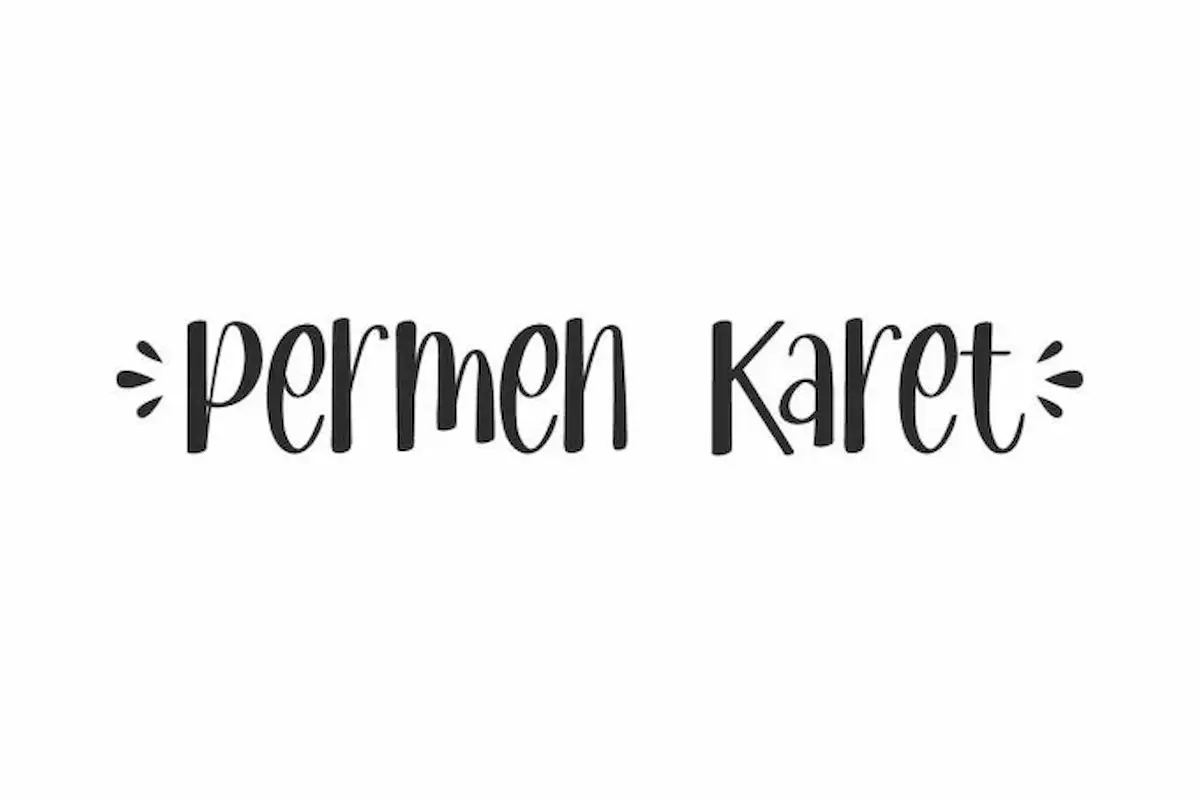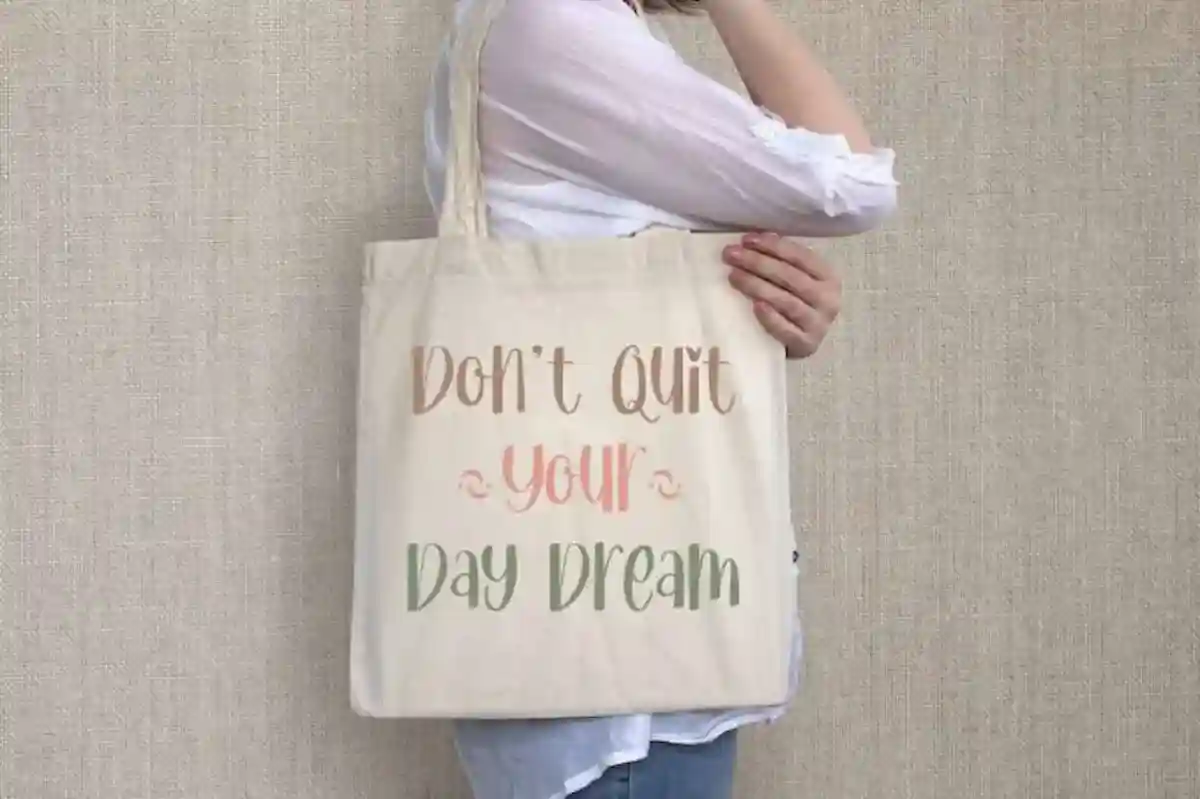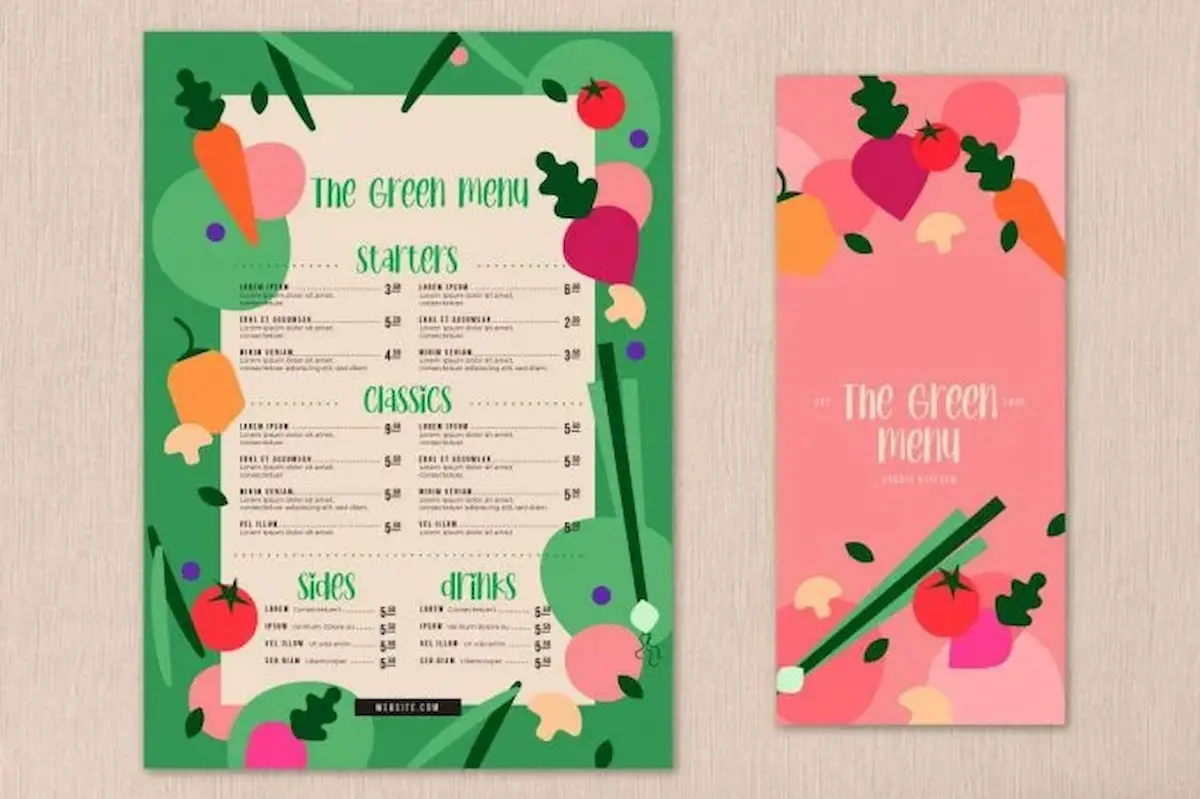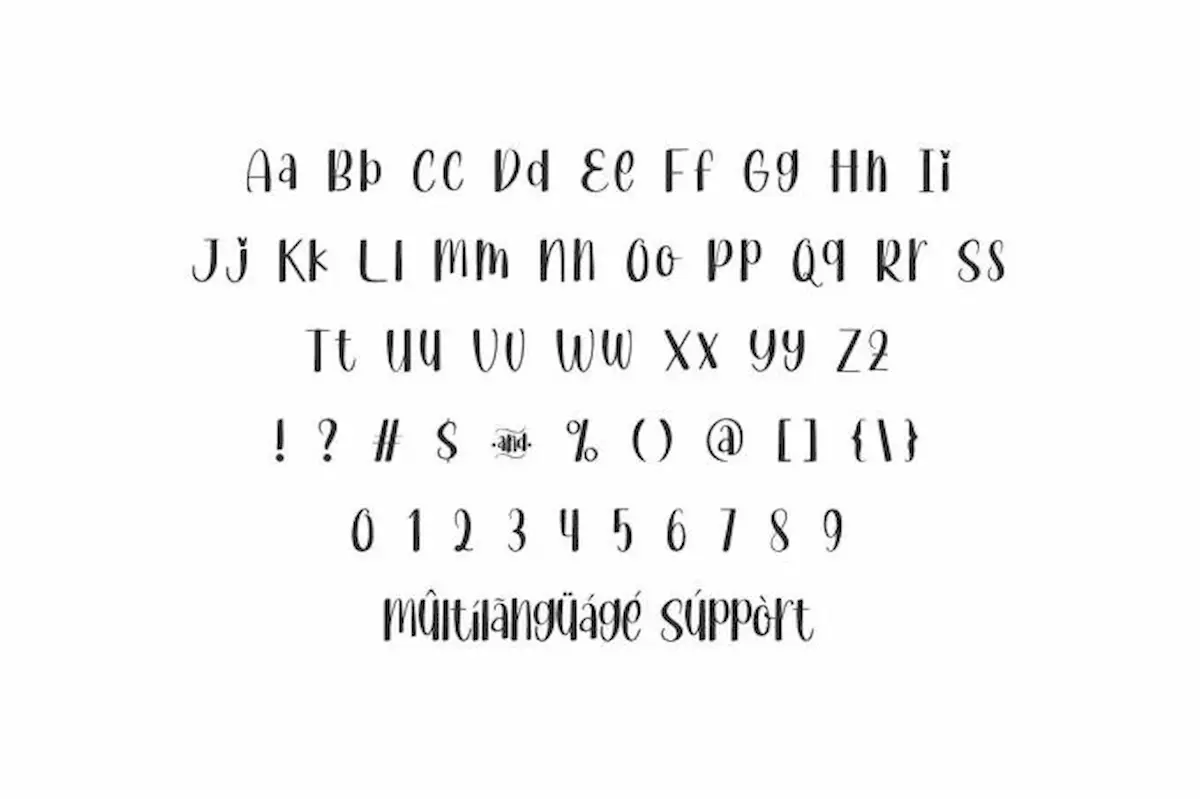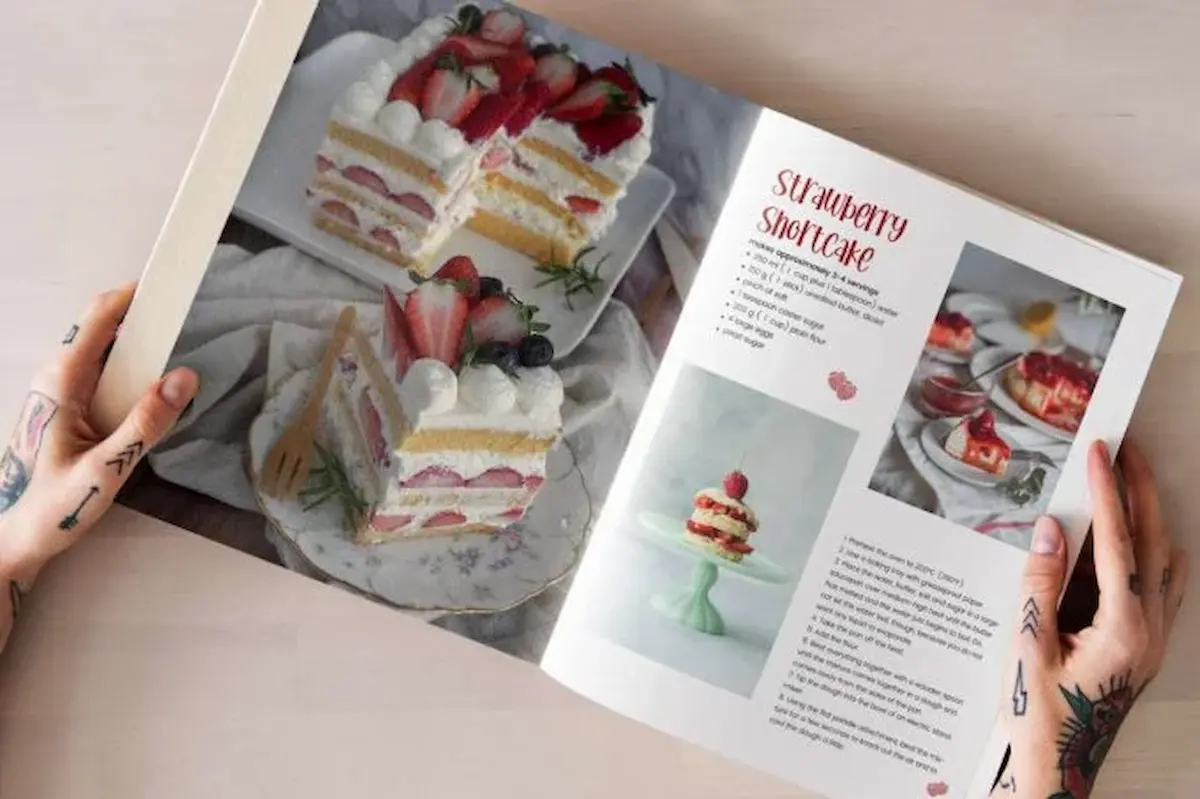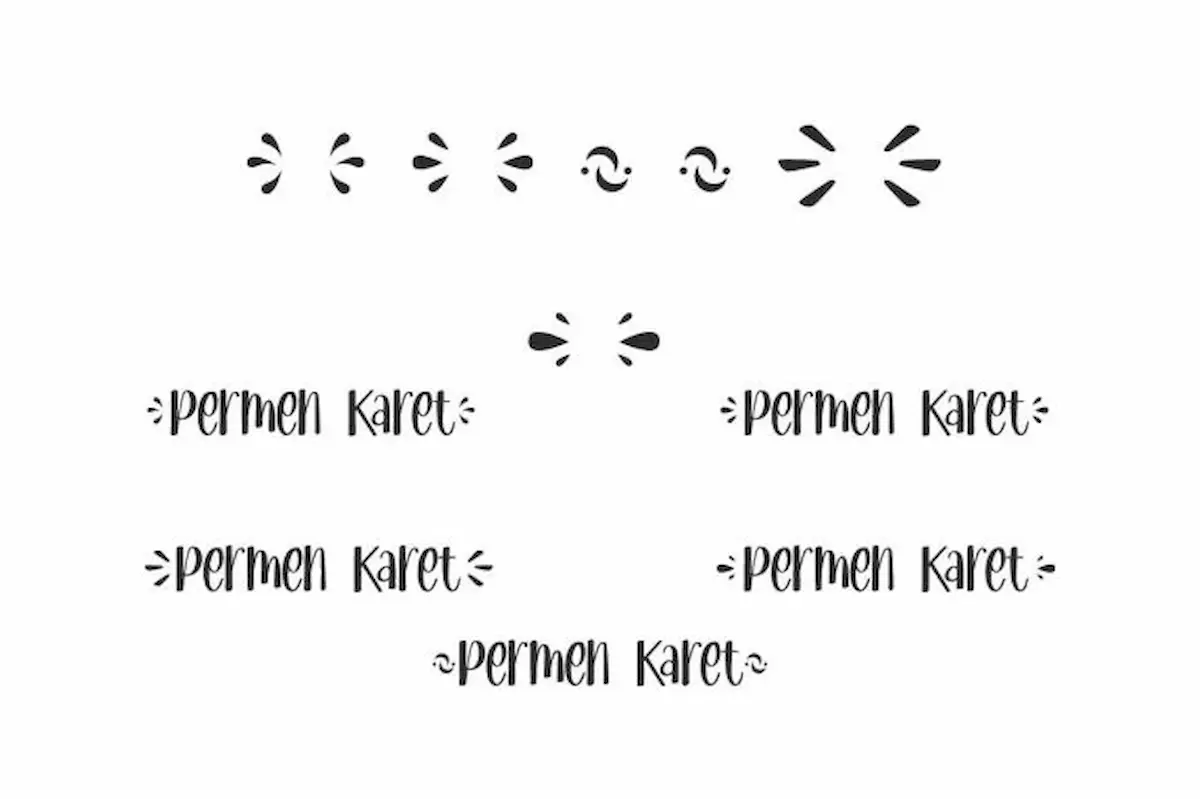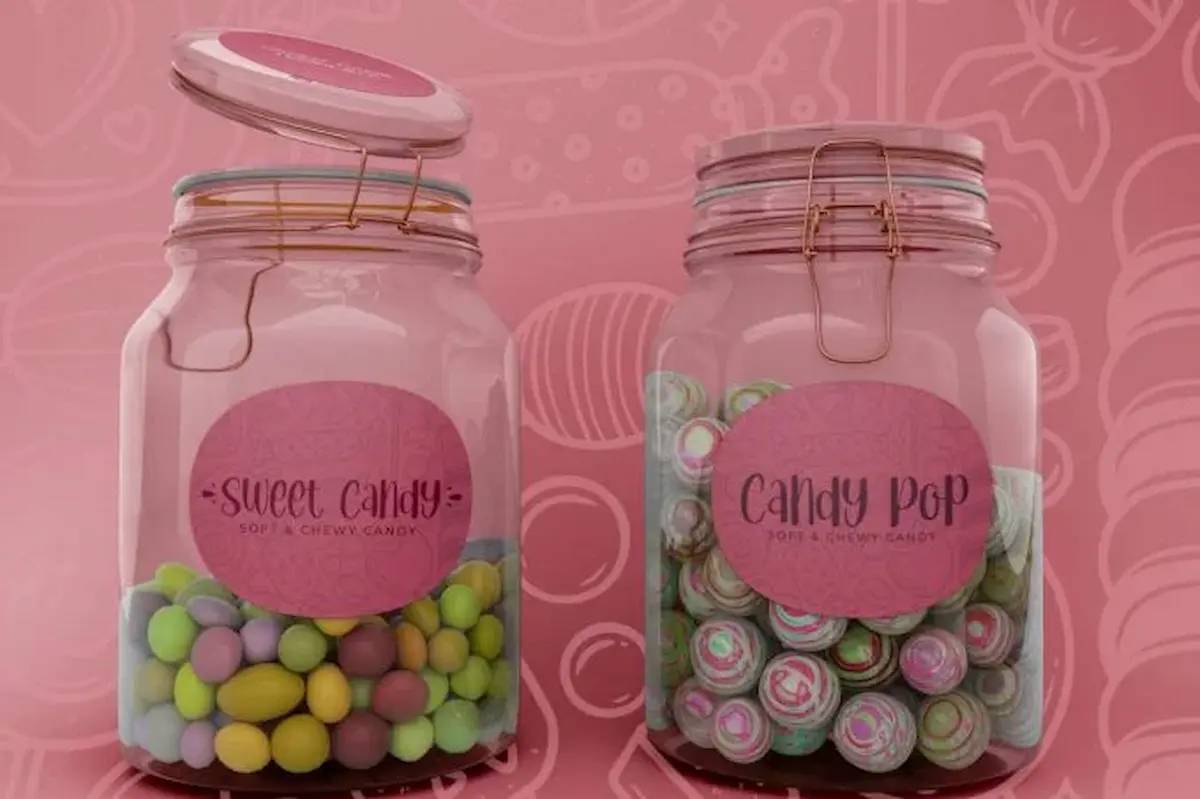
Permen Karet Font is a cute and fun simple brush font inspired from gummy candy, you can use for anything from product packaging, quotes, title and more
Permen Karet Font is a cute stylish handwritten font inspired from gummy candy. It looks amazing on menu attachments, quotes, logos, business cards, the use of printed items such as bags, t-shirts, books or also the use of letters in the world of technology such as, web page layouts, applications and any other designs that require a handwritten touch.
Permen Karet Font would be great for, logo branding, products packaging, title and many more!! made by NihStudio in 2021 which will add a touch of fun to any of your projects